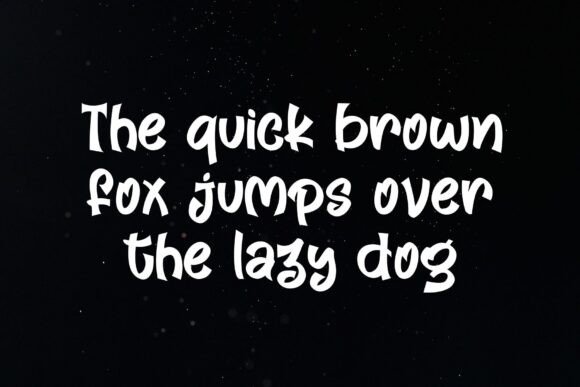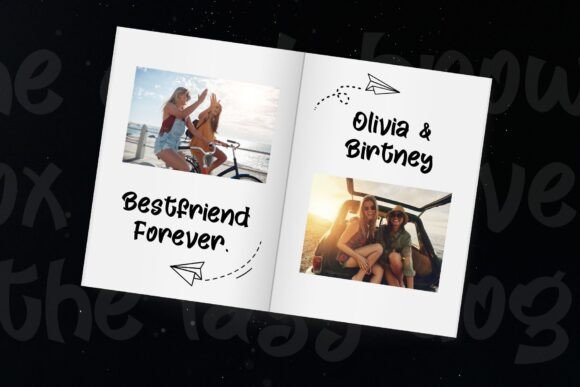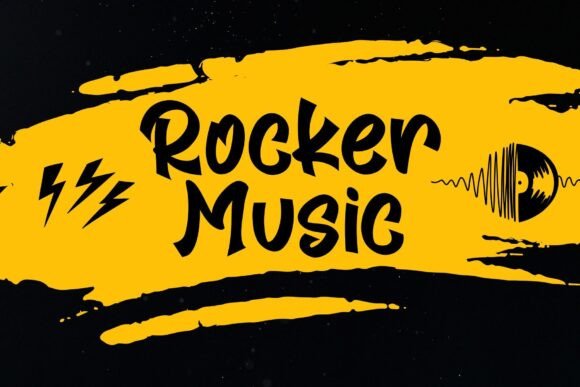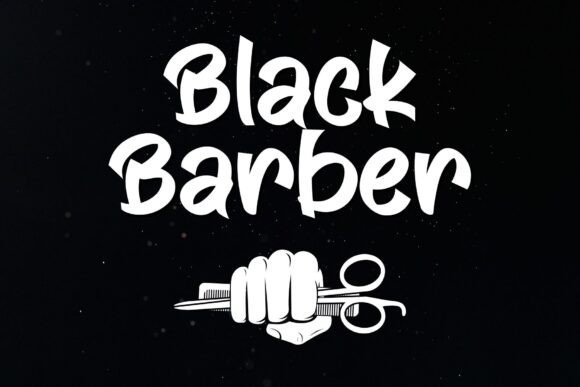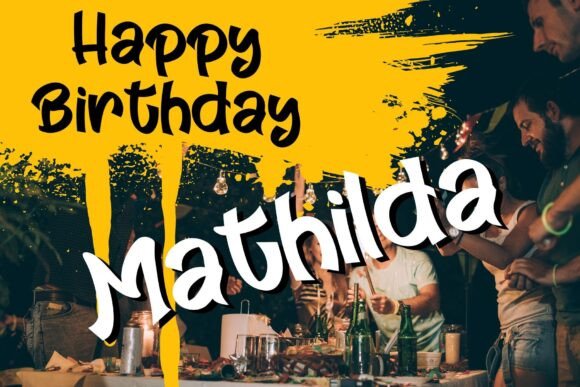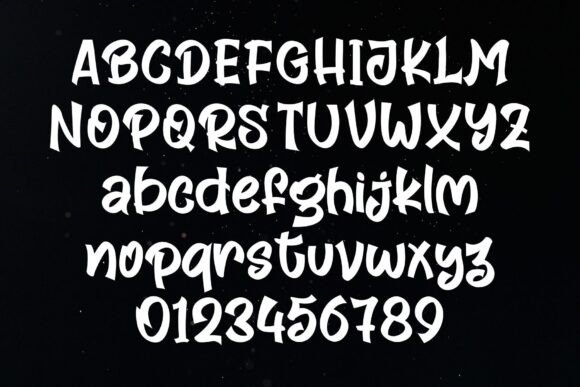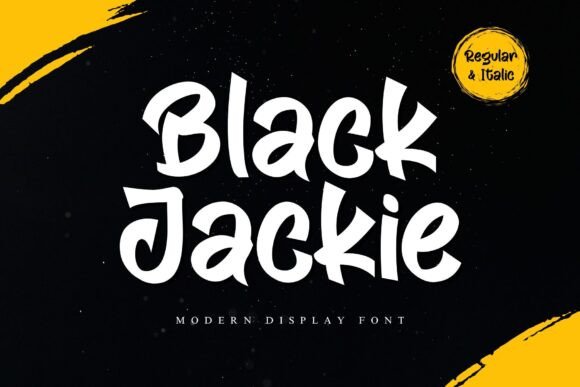
Unleash the Untamed Creativity with Black Jackie Font
In the realm of typography, a new star has emerged to revolutionize the design landscape. Say hello to “Black Jackie,” a contemporary display font that is poised to take your creative endeavors to unprecedented heights. With its distinctive characteristics and captivating appeal, Black Jackie has the remarkable ability to breathe life into your designs, unlocking a new dimension for your artistic journey.
The Birth of Black Jackie
Black Jackie is more than just a font; it’s an expression of modernity and creativity. Crafted with precision and passion, this display font boasts a unique aesthetic that sets it apart from the rest. Its design is a masterful blend of boldness and elegance, making it an ideal choice for designers and crafters looking to make a statement.
Unique Characteristics of Black Jackie
So, what makes Black Jackie stand out in the crowded world of typography? Here are a few of its standout features:
- Bold and Edgy: Black Jackie exudes confidence with its bold and edgy appearance. It’s the perfect choice for projects that demand attention and make a lasting impression.
- Contemporary Aesthetic: With its clean lines and modern design, Black Jackie is tailored to meet the needs of contemporary design projects, from branding and advertising to packaging and digital media.
- Versatile: Despite its bold nature, Black Jackie is surprisingly versatile. It can be used across various mediums, from print to digital, and can adapt to different design contexts with ease.
- Highly Legible: One of the key strengths of Black Jackie is its legibility. Even at smaller sizes, it remains clear and readable, making it a practical choice for a wide range of applications.
Applications of Black Jackie
The possibilities with Black Jackie are endless. Here are some ways you can leverage this powerful font in your designs:
- Branding and Logo Design: Create a bold and memorable brand identity with Black Jackie. Its unique style can help your brand stand out in a crowded market.
- Advertising and Marketing: Use Black Jackie to create eye-catching advertisements and marketing materials that grab attention and drive engagement.
- Packaging Design: Add a touch of modernity and sophistication to your product packaging with Black Jackie.
- Digital Media: From website headers to social media graphics, Black Jackie can elevate your digital content and make it more engaging.
Tips for Using Black Jackie Effectively
To get the most out of Black Jackie, consider the following tips:
- Pair it with Simplicity: Let Black Jackie be the focal point of your design by pairing it with simpler fonts and clean layouts.
- Experiment with Colors: Don’t be afraid to play with different colors and gradients to enhance the visual impact of Black Jackie.
- Consider Context: Think about the context in which Black Jackie will be used and adjust its size, style, and color accordingly.
Black Jackie is more than just a font; it’s a creative catalyst that can transform your design projects and unlock new possibilities. With its bold and contemporary aesthetic, versatility, and high legibility, Black Jackie is poised to become a favorite among designers and crafters. So why wait? Unleash the untamed creativity within you with Black Jackie and take your designs to the next level.